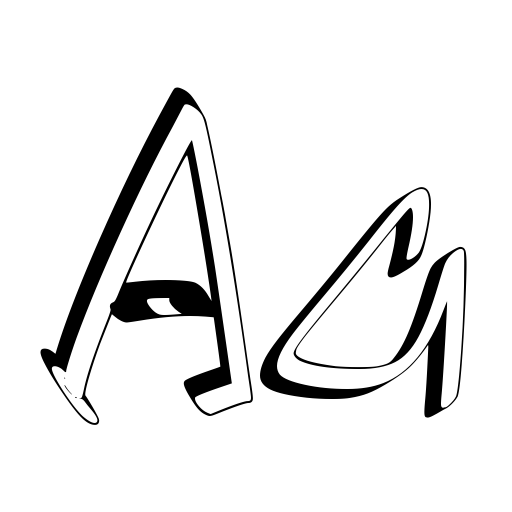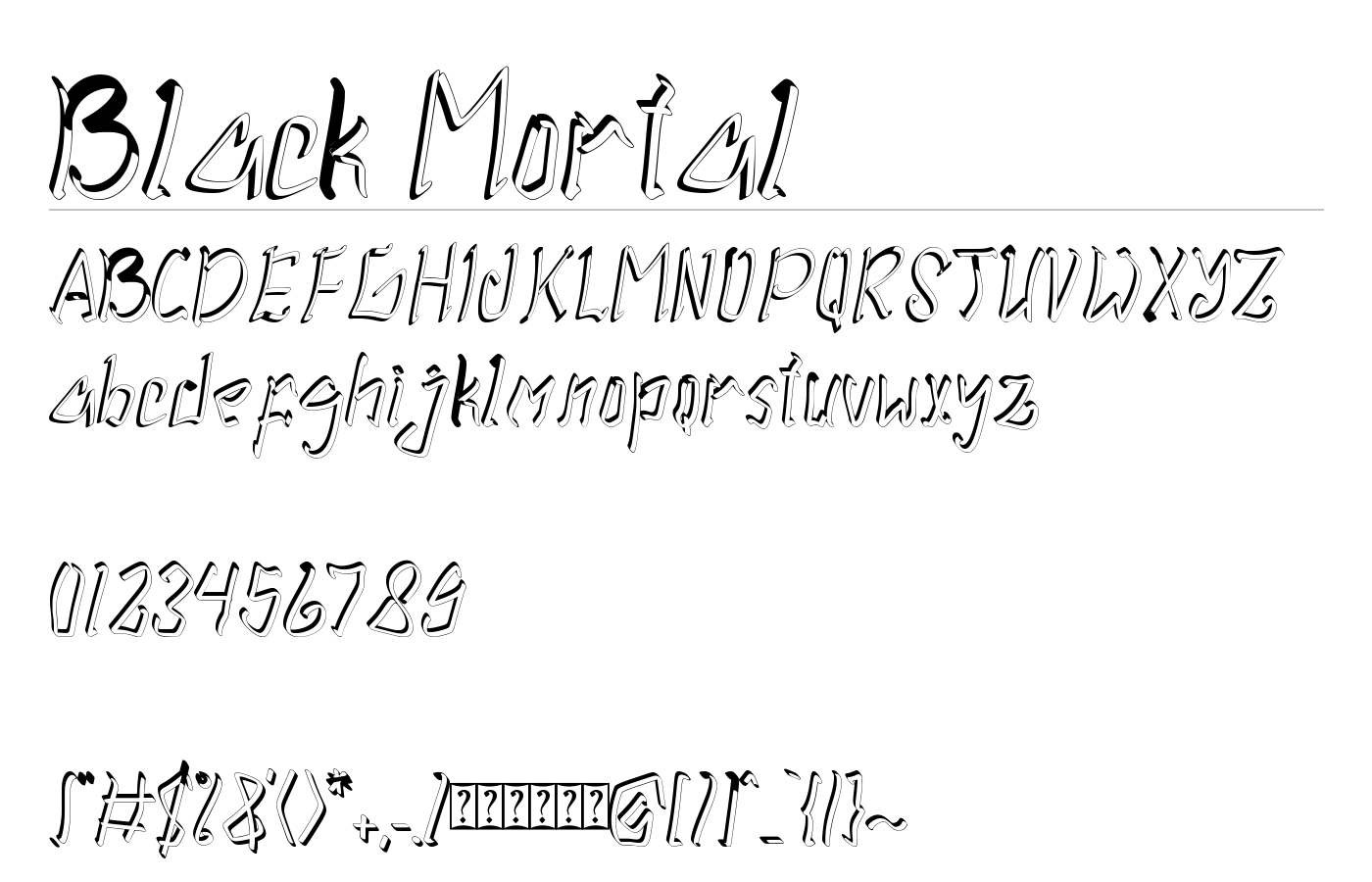
Black Mortal is a decorative, hand-drawn serif font with a playful yet edgy personality, featuring irregular strokes and quirky letterforms that blend bold, sketch-like outlines with a slightly condensed structure. Its unique style works well for creative projects seeking a distinctive, artistic flair, making it ideal for logos, posters, and expressive branding where a dramatic, energetic vibe is desired.
Black Mortal Font
About Black Mortal Font
| Font family | Black Mortal Font |
| Designer | Yoga Letter 2023 (Isroni Yoga Prasetya) |